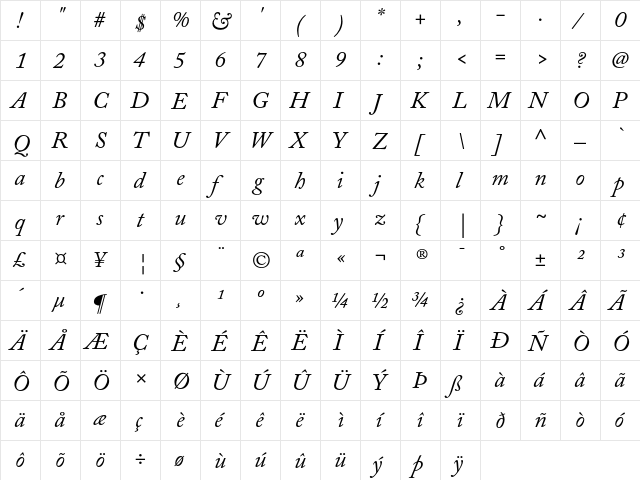
Adobe Caslon Italic
Design Context for Adobe Caslon Typeface
Adobe Caslon is a composed and adaptable typeface that performs quietly and consistently across a wide range of design contexts. Its italic angle brings a sense of urgency and motion to the letterforms.
Pro Tip: Try Adobe Caslon for annotation and caption copy alongside an upright companion — the contrast in angle creates a dynamic but ordered typographic system.